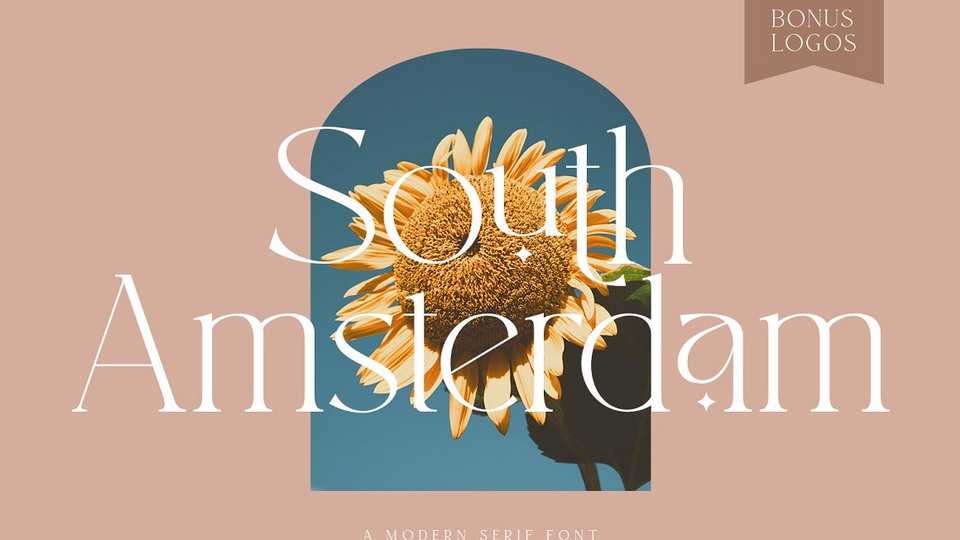
Download South Amsterdam font, a modern serif typeface with decorative characters. South Amsterdam is a perfect choice for magazine, logo, invitations, product designs, and more
Designer: Geranium Space